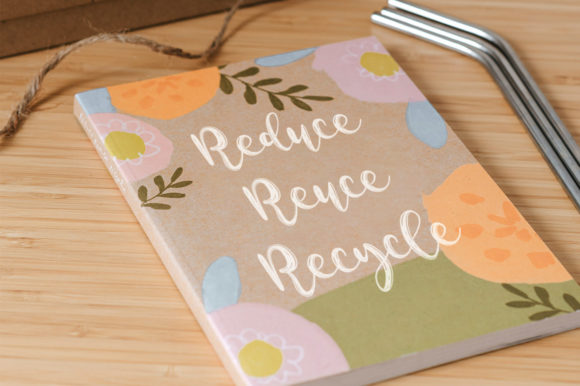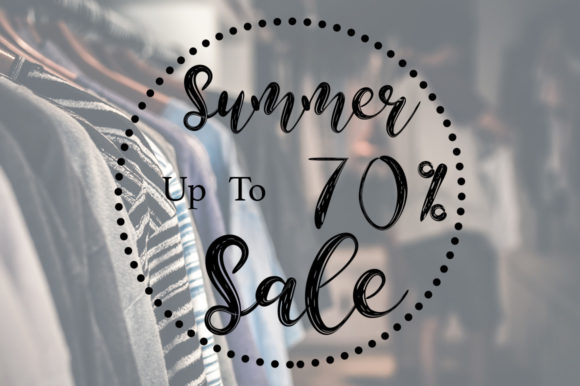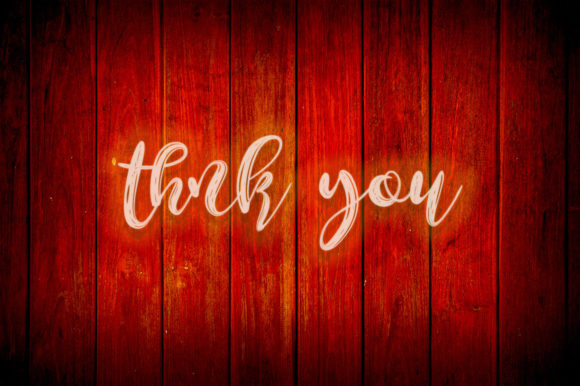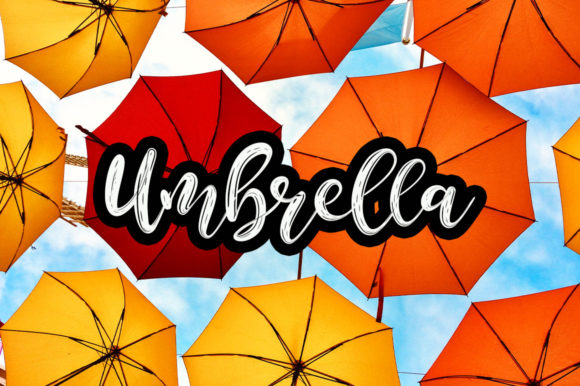
Aurora Font: A Lovely Paint Brushed Script Font for Your Creative Projects
Are you a designer or crafter looking for a unique and distinctive font to add a personal touch to your creations? Look no further than the Aurora Font. This lovely paint brushed script font is sure to capture your heart with its beautifully crafted letters and rustic charm. In this article, we’ll take a closer look at the Aurora Font, its features, and how you can use it to elevate your designs and crafts.
What is Aurora Font?
Aurora is a paint brushed script font that exudes a sense of elegance and sophistication. Its uniquely shaped letters are carefully crafted to give your designs a distinct touch that’s sure to set them apart from the rest. Whether you’re working on a logo, branding project, or simply want to add a personal touch to your crafts, the Aurora Font is the perfect choice.
Features of Aurora Font
The Aurora Font boasts a range of features that make it a standout choice for designers and crafters. Some of its key features include:
- Uniquely shaped letters: Each letter in the Aurora Font is carefully crafted to give it a unique and distinctive shape. This ensures that your designs stand out and have a personal touch.
- Paint brushed effect: The Aurora Font features a beautiful paint brushed effect that gives it a rustic and charming feel.
- Easy to read: Despite its unique shape, the Aurora Font is easy to read and understand, making it perfect for use in a variety of designs and crafts.
- Versatile: The Aurora Font is versatile and can be used in a wide range of designs and crafts, from logos and branding to invitations and DIY projects.
How to Use Aurora Font in Your Designs and Crafts
The Aurora Font is a versatile font that can be used in a wide range of designs and crafts. Here are a few ideas to get you started:
- Logos and branding: Use the Aurora Font to create a unique and memorable logo for your business or brand.
- Invitations and stationery: Add a personal touch to your invitations and stationery with the Aurora Font.
- DIY projects: Use the Aurora Font to add a personal touch to your DIY projects, such as handmade cards, gift tags, and more.
- Social media graphics: Use the Aurora Font to create eye-catching social media graphics that stand out from the crowd.
Tips for Getting the Most Out of Aurora Font
Here are a few tips for getting the most out of the Aurora Font:
- Experiment with colors: The Aurora Font looks great in a range of colors, so don’t be afraid to experiment and find the perfect color for your design.
- Use it with other fonts: The Aurora Font pairs well with other fonts, so try using it with a bold font for headings or a clean font for body text.
- Pay attention to spacing: Make sure to pay attention to the spacing between letters and words to ensure that your design looks balanced and visually appealing.
The Aurora Font is a lovely paint brushed script font that’s perfect for designers and crafters looking to add a personal touch to their creations. With its uniquely shaped letters, paint brushed effect, and versatility, it’s sure to become a favorite in your font collection. Whether you’re working on a logo, invitation, or DIY project, the Aurora Font is sure to elevate your design and give it a distinct touch.